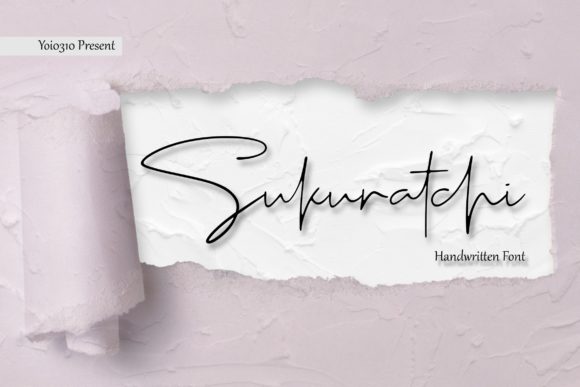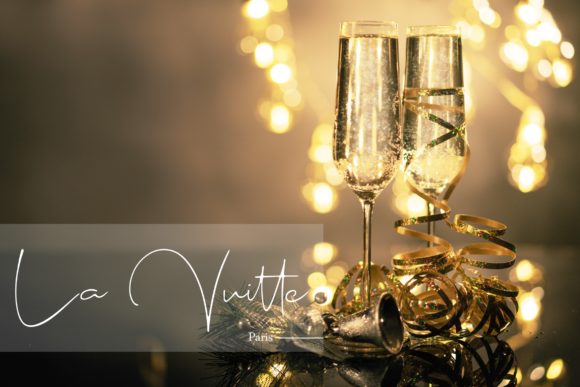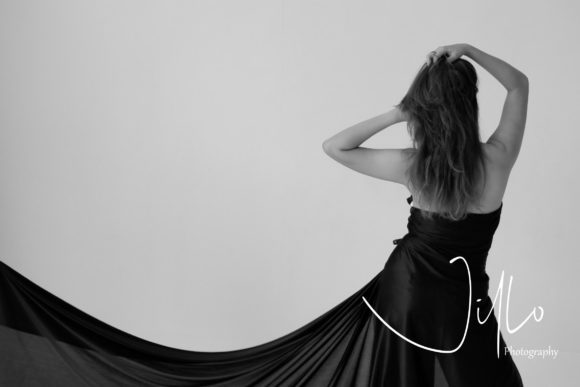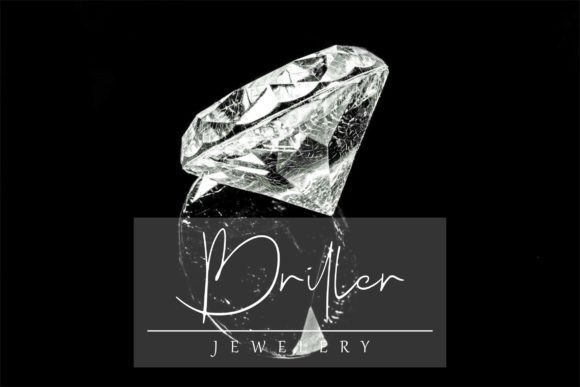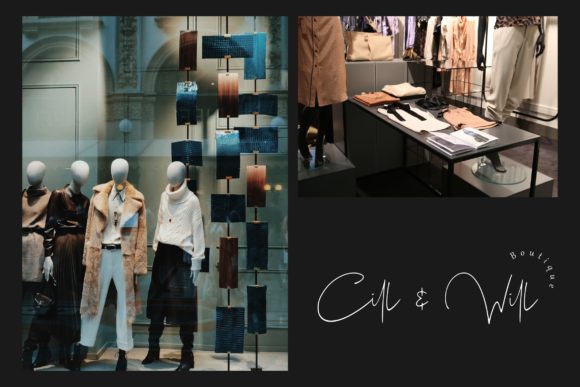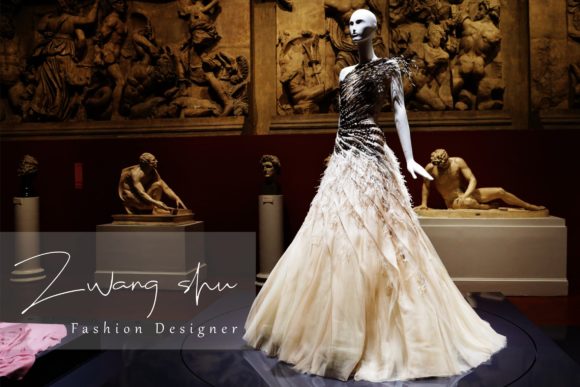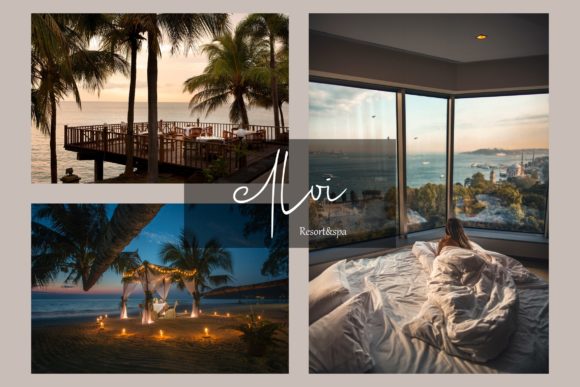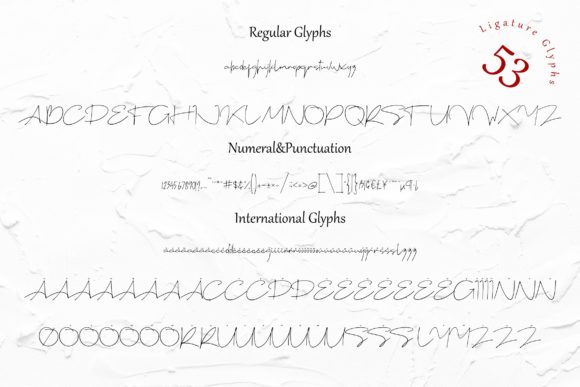
Sukuratchi Font
About Sukuratchi Font
Sukuratchi features a fantastic minimalist script style that will deliver any message with style. It will add that authentic vibe to any design project!